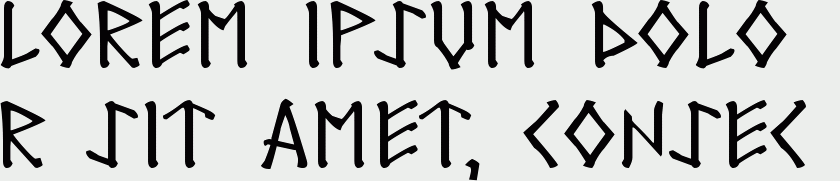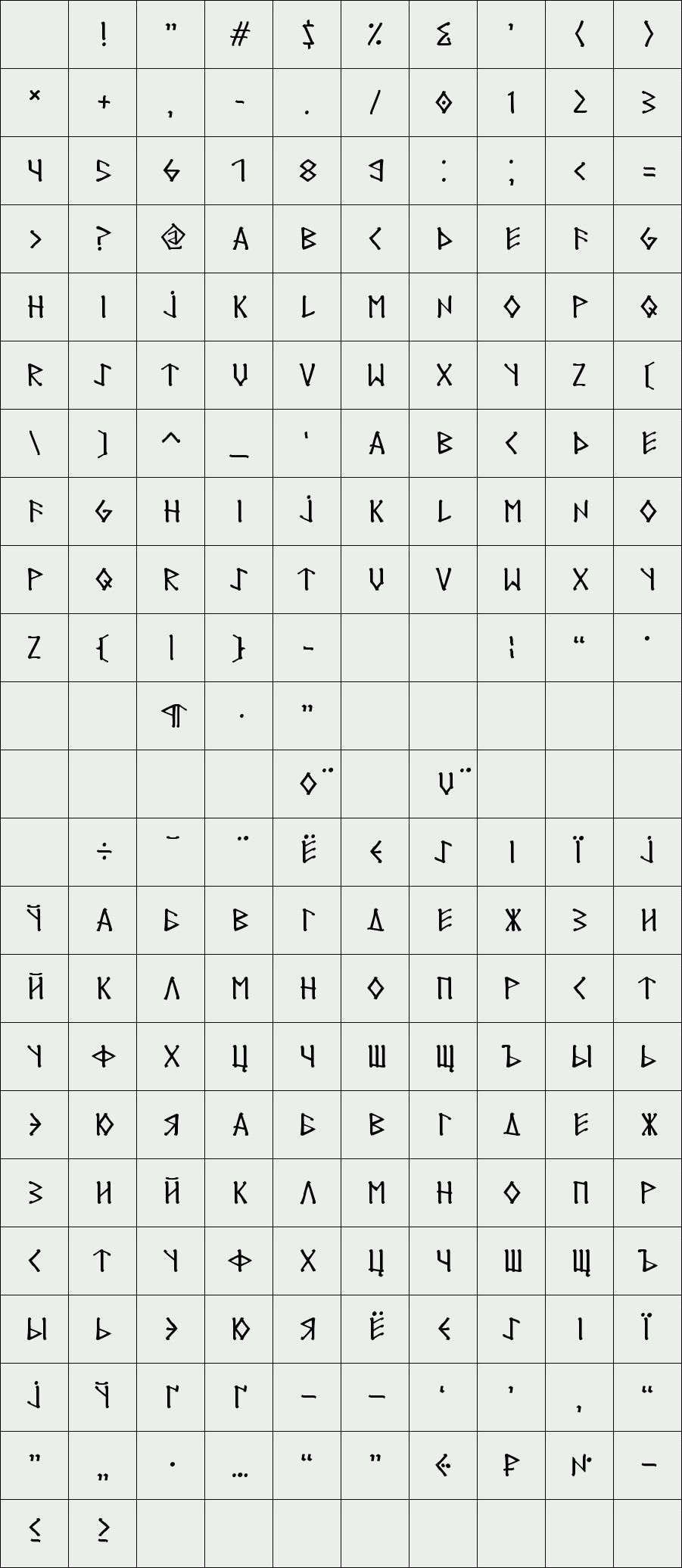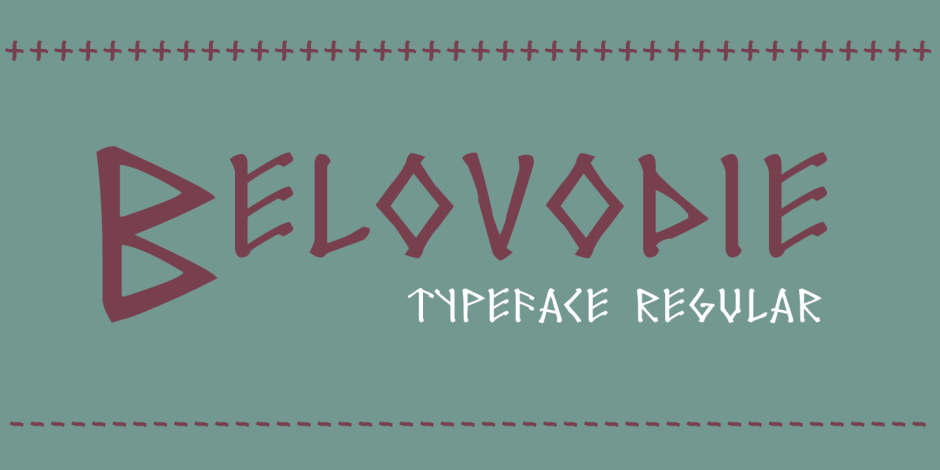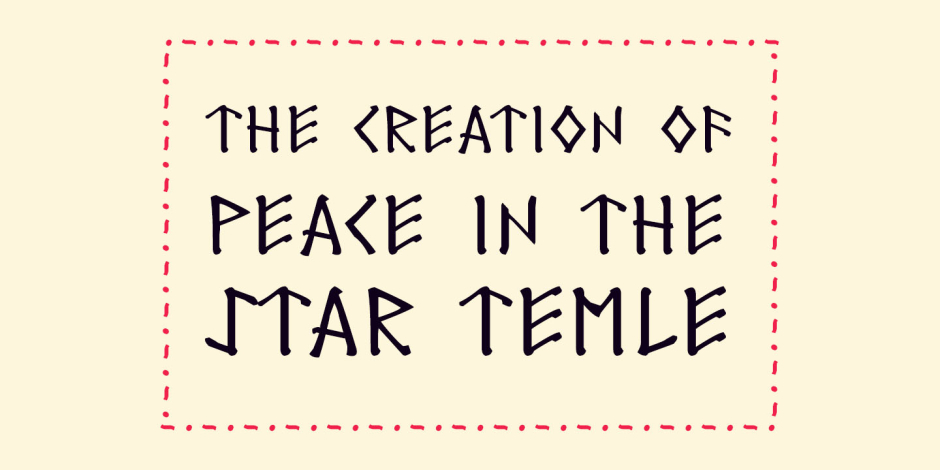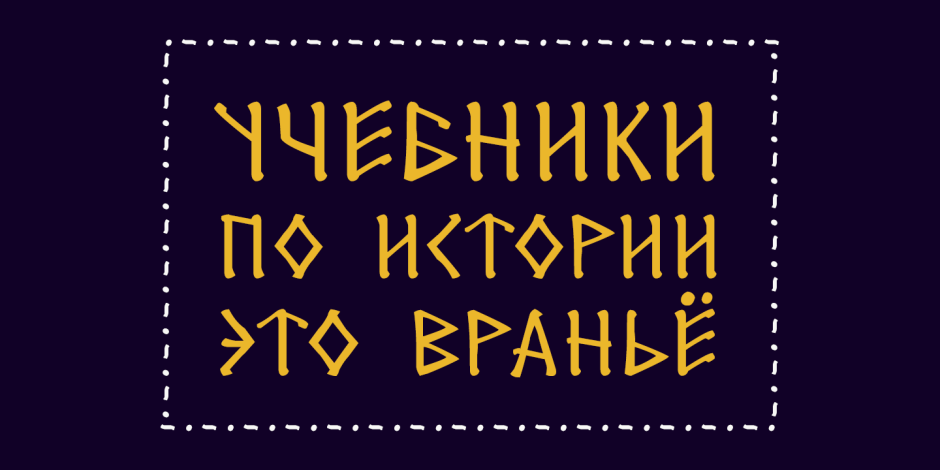
Rusich
Rusich is a graphical font, in the style of ancient decorative label. Rusich reminds skillfully executed cutting of wood, lovingly crafted by loving hands of our ancient ancestor. In the font Rusich present Russian and Latin alphabet, all the basic mathematical symbols and punctuation marks. All caps. Rusich from ancient times, the reminder that we have one common Ancestor.